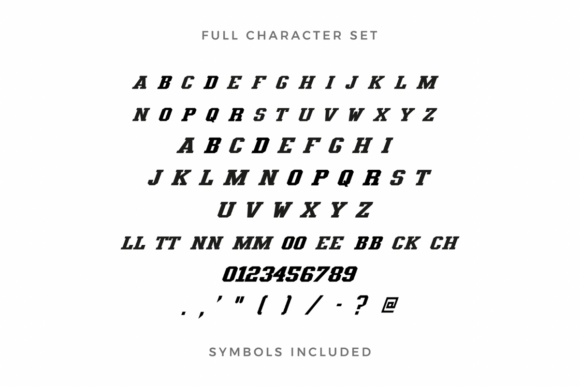
Introduction to Racerback Font
Introducing Racerback: An unparalleled athletic-inspired font that captures the spirit of competition and camaraderie that is emblematic of sports in college and university environments.
This innovative font exhibits a distinctive sporty style, lending itself perfectly to designs that need to embody energy, passion and the thrill of the game Whether youโre aiming to channel the persona of a campus athlete, or seeking to inject an element of dynamic athleticism into your design, Racerback is your go-to choice for a font that resonates with the essence of spirited rivalry and academic sportsmanship.
Key Features of Racerback Font
Why Choose Racerback Font?